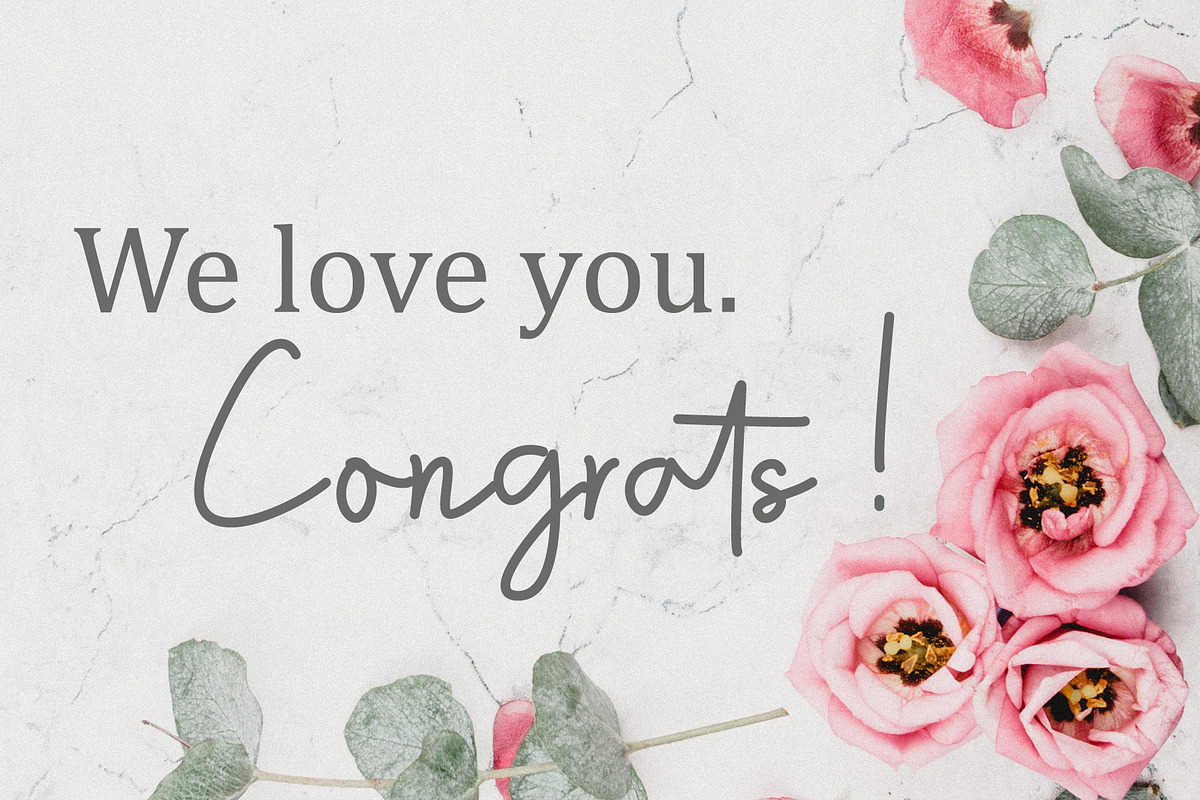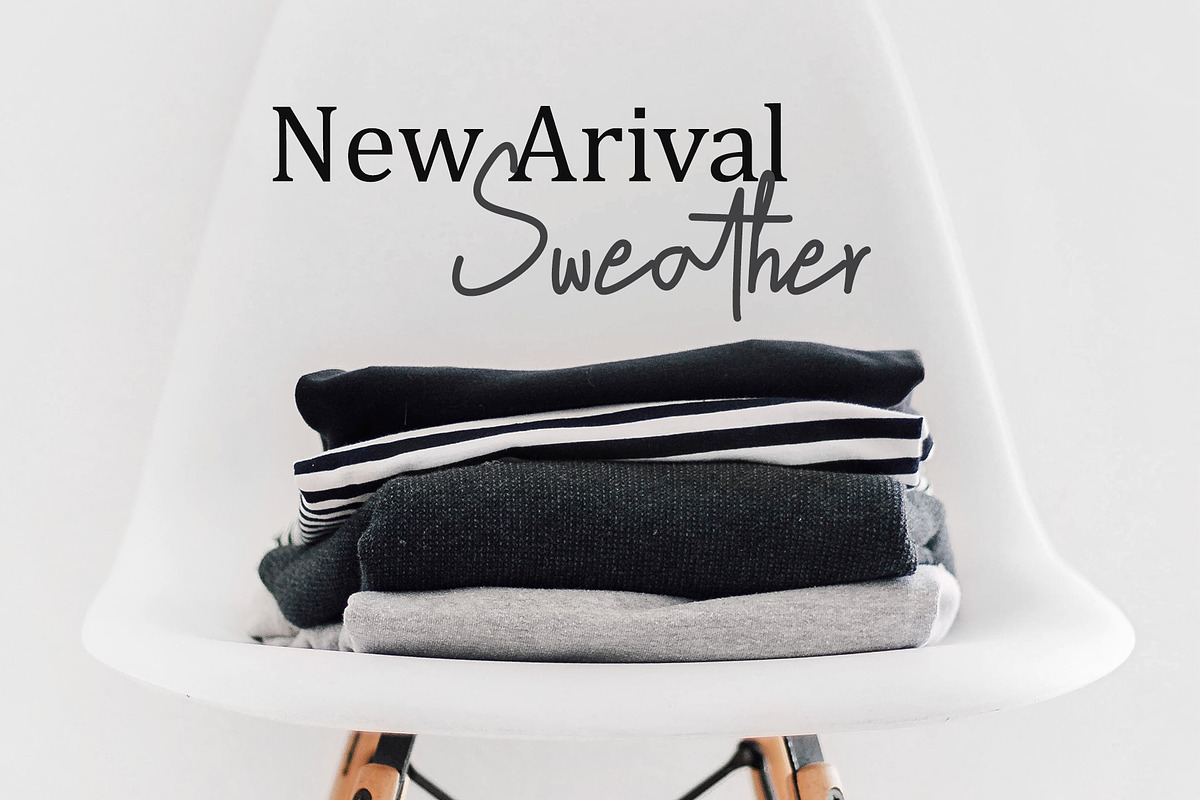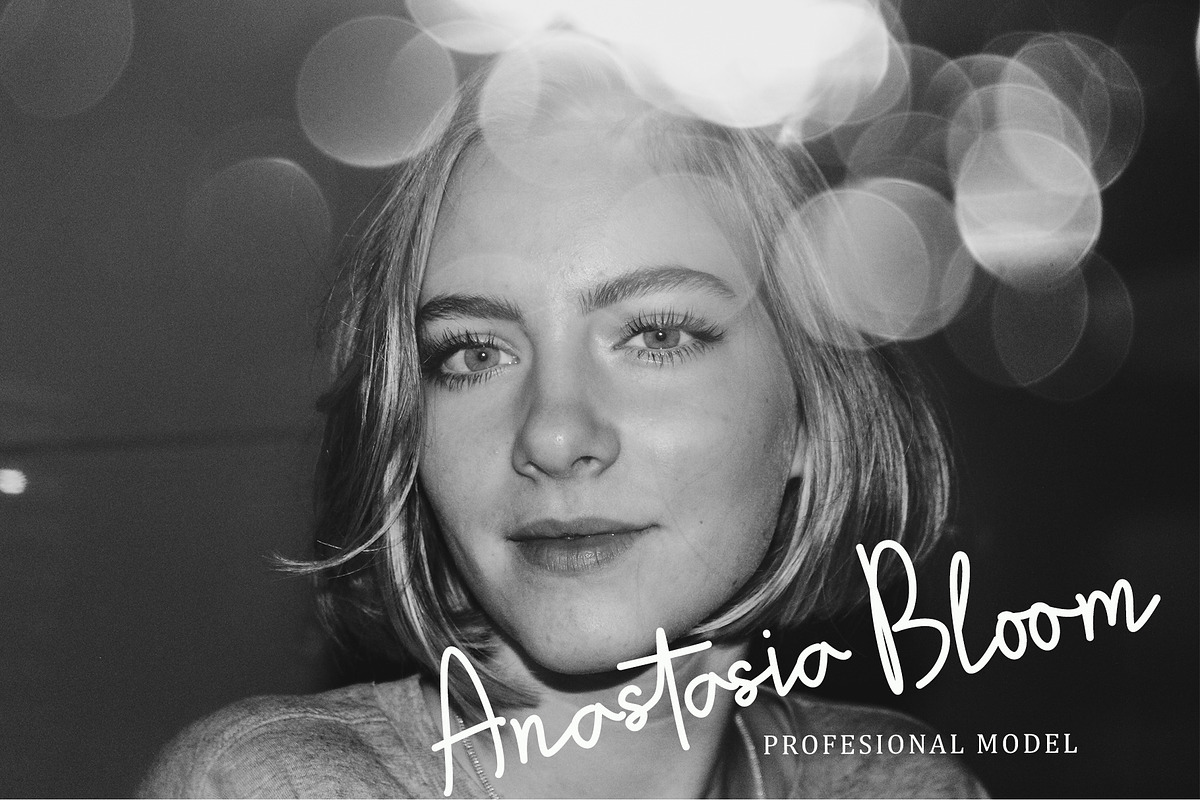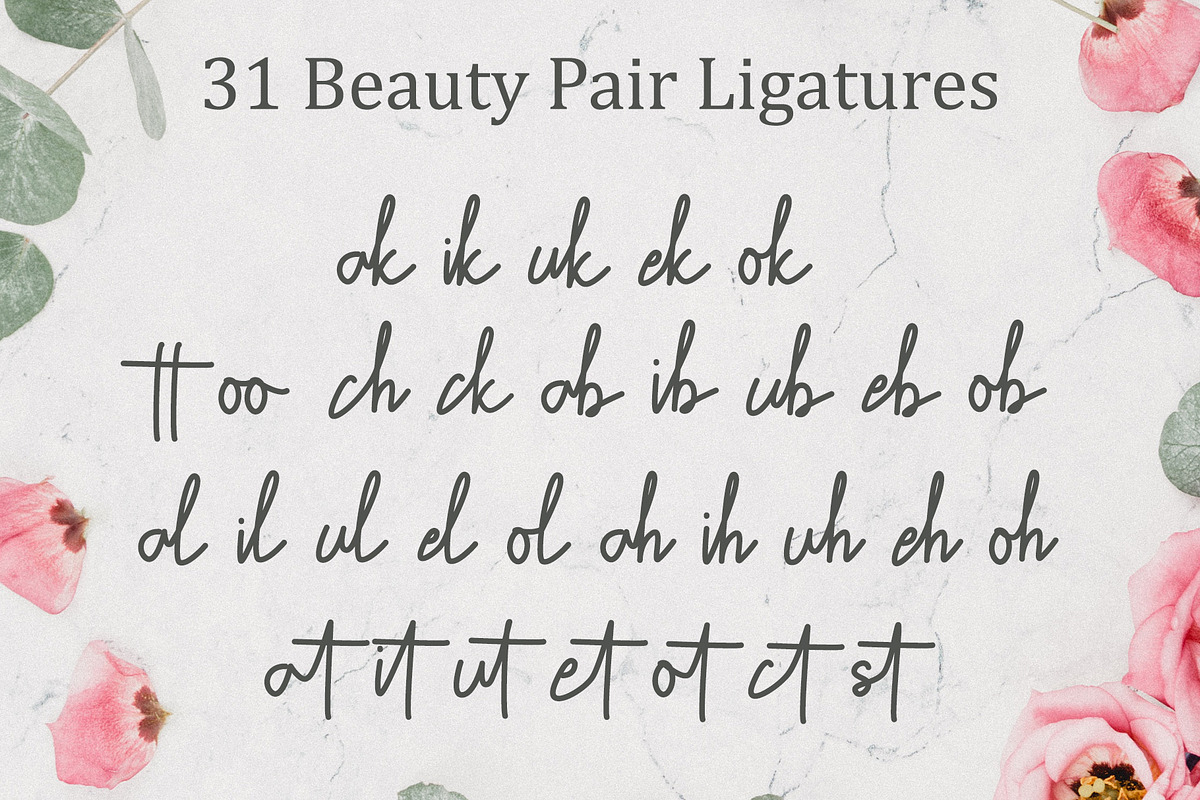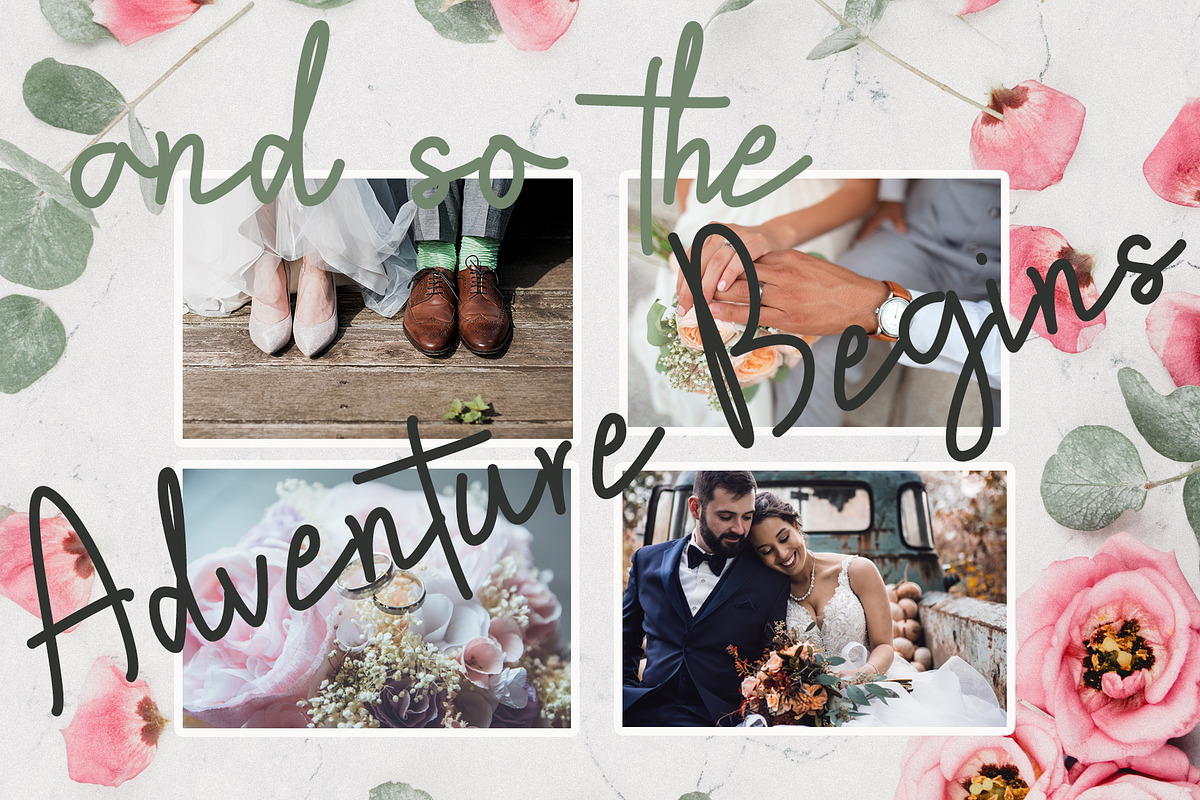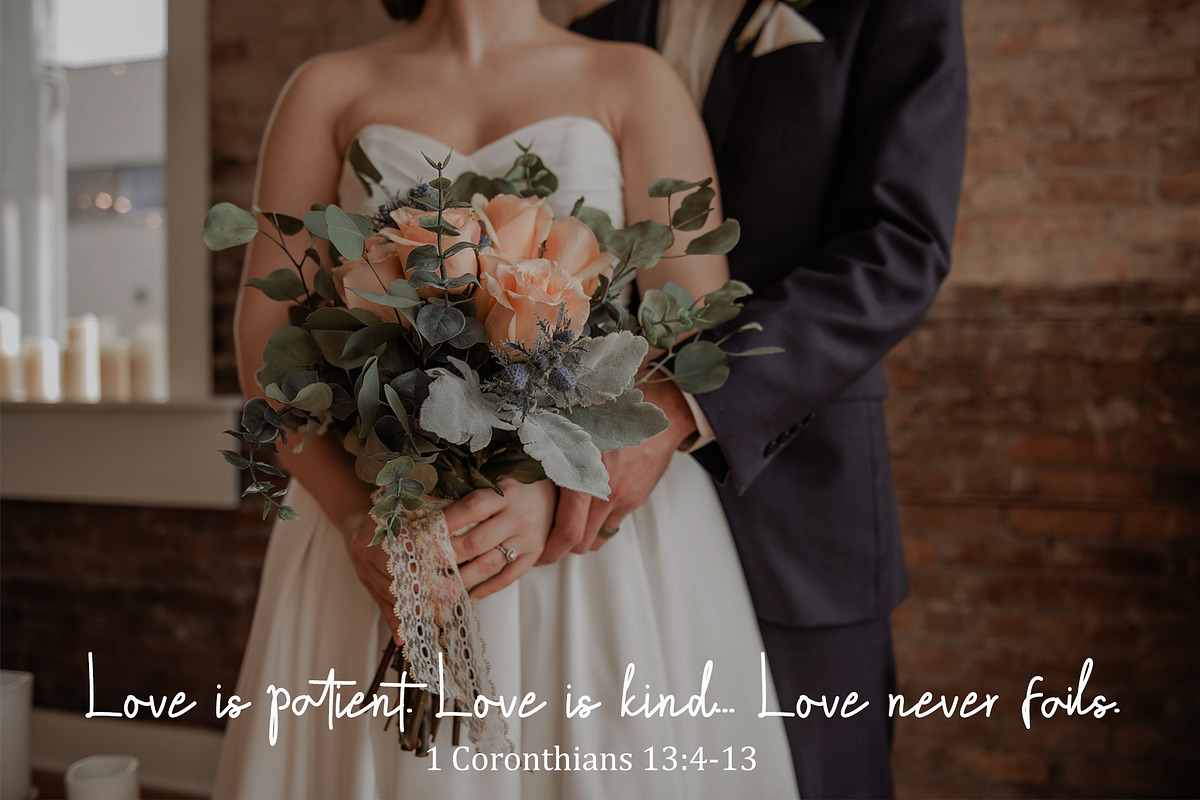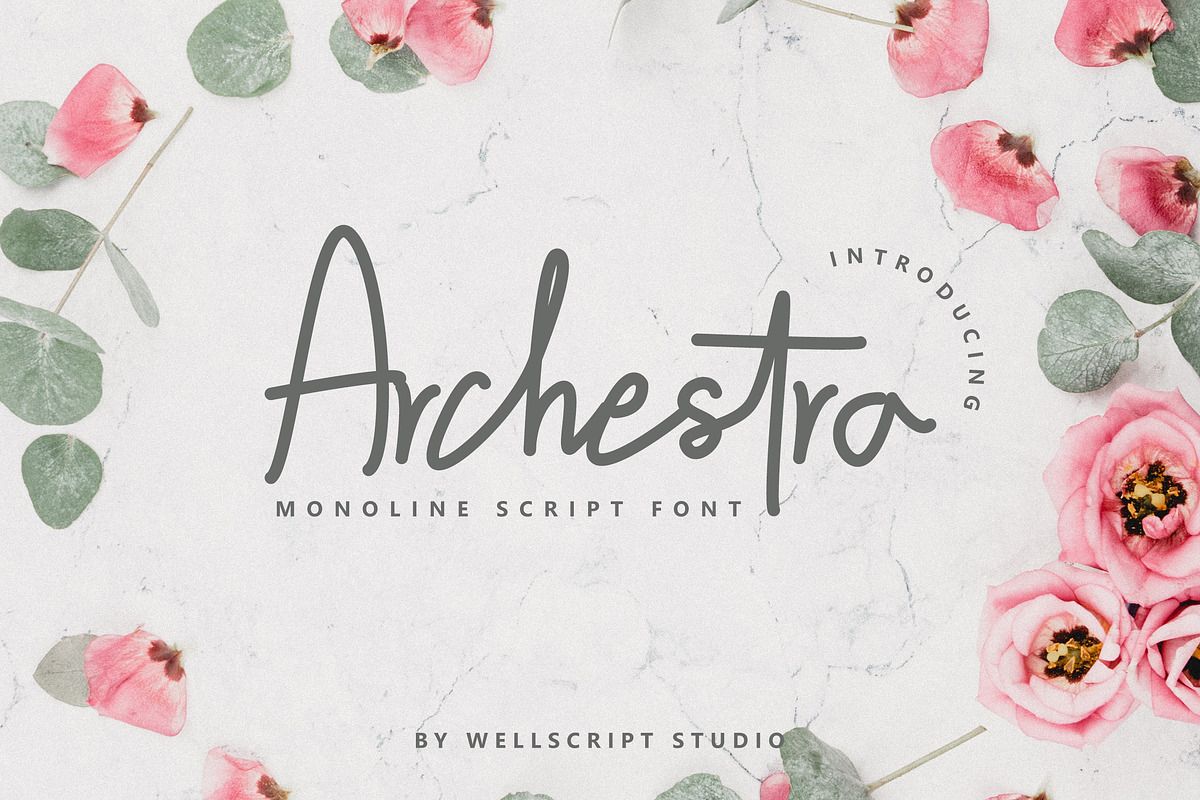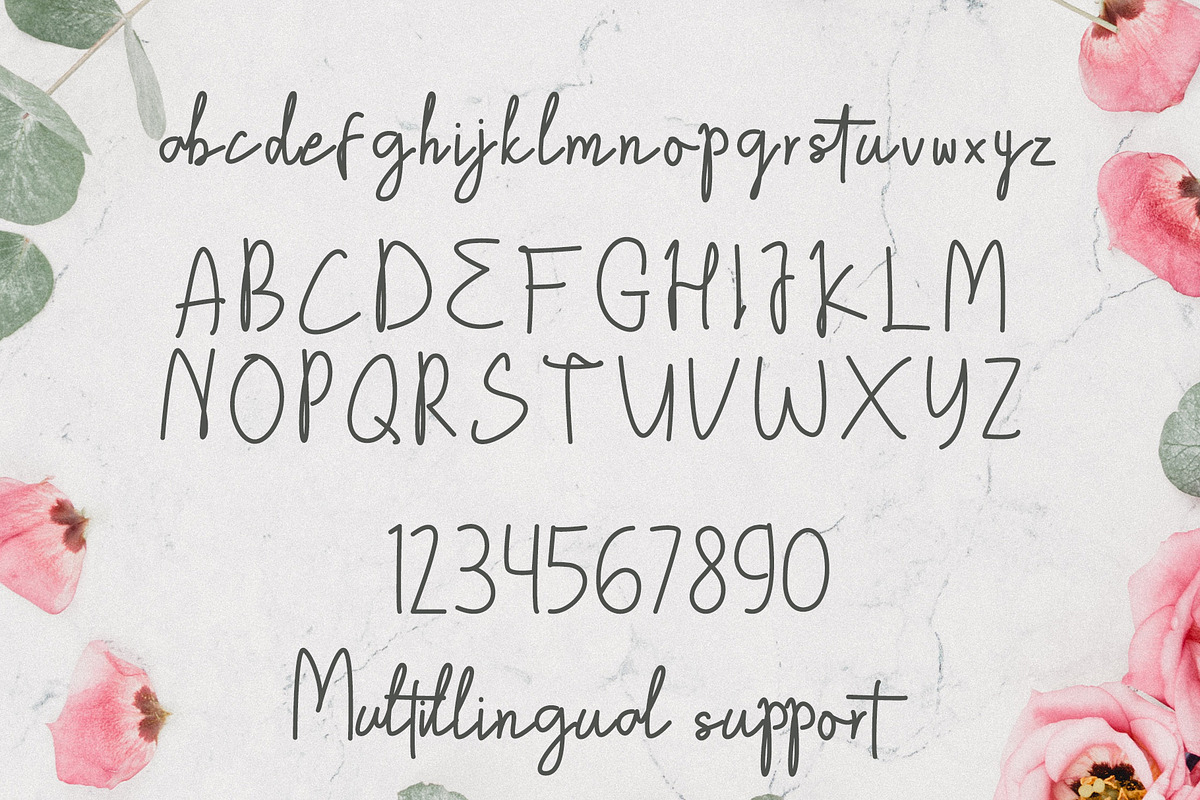
Archestra - Handwritten Script
Archestra is an elegant monoline handwritten signature script. It has an unique flow with a simple and organic look. This collection of scripts is perfect for branding. This works well for many applications. Everything from branding, wedding invitations, social media posts, advertisements, product packaging, product designs, label, photography, watermark, invitation, stationery and any projects that need handwriting taste. Archestra includes full set of gorgeous uppercase and lowercase letters, numerals, a large range of punctuation and ligatures.